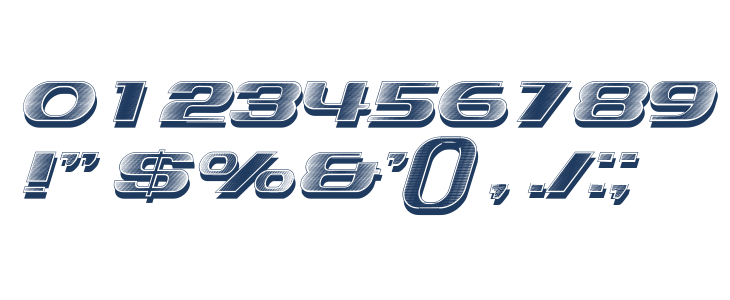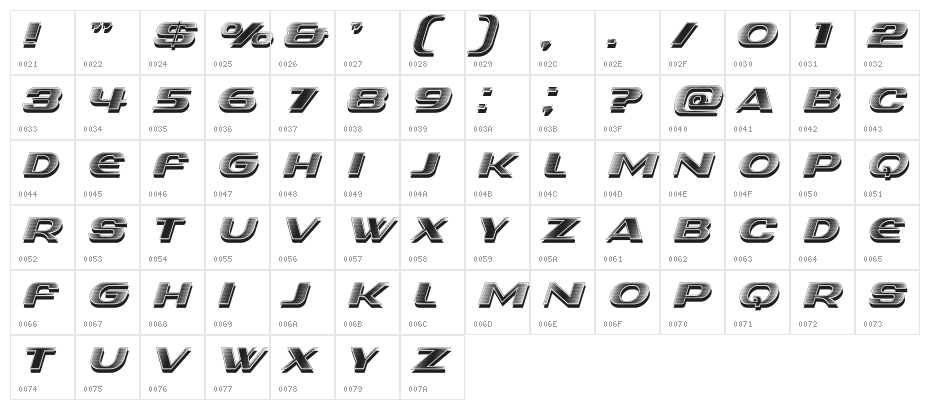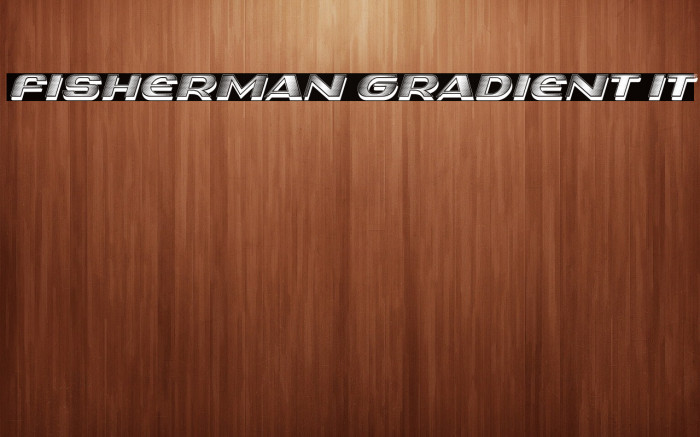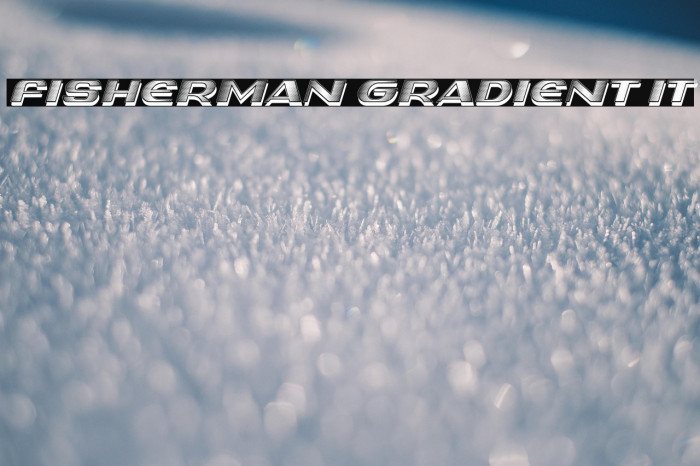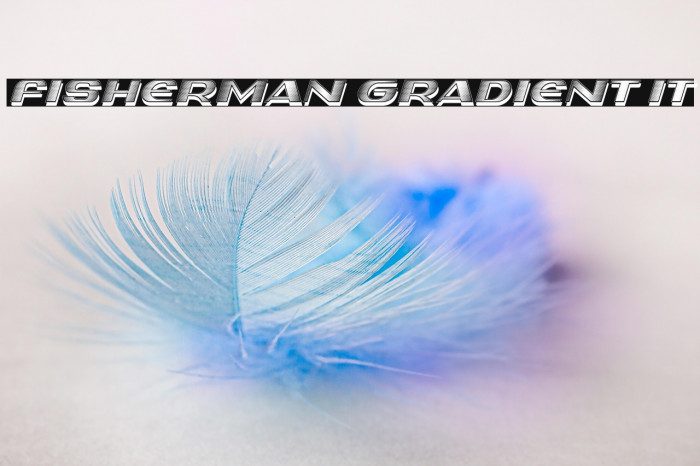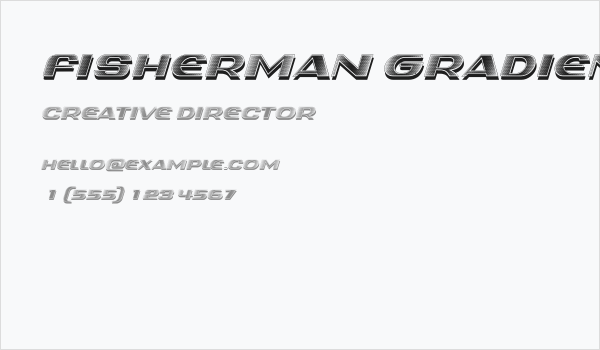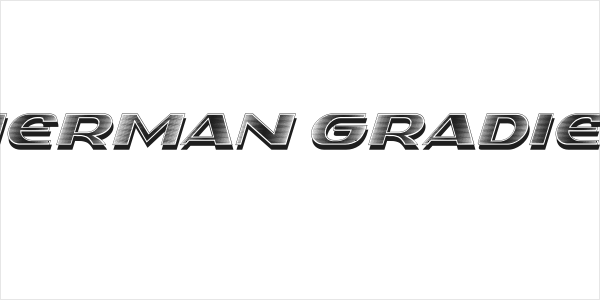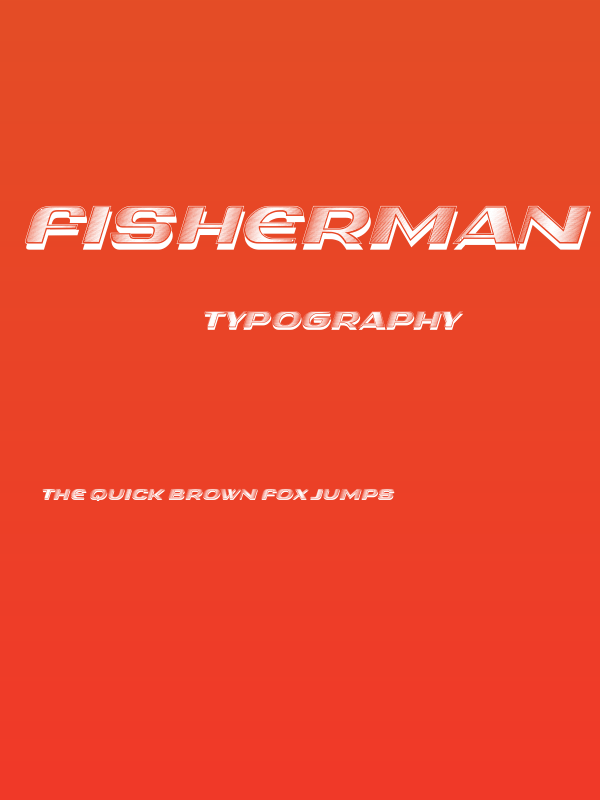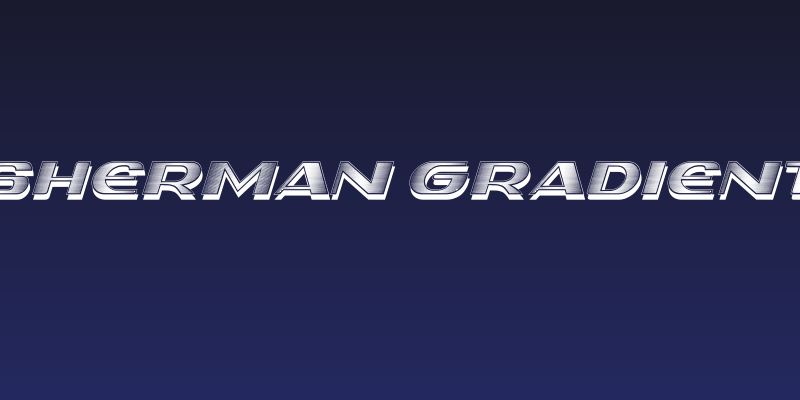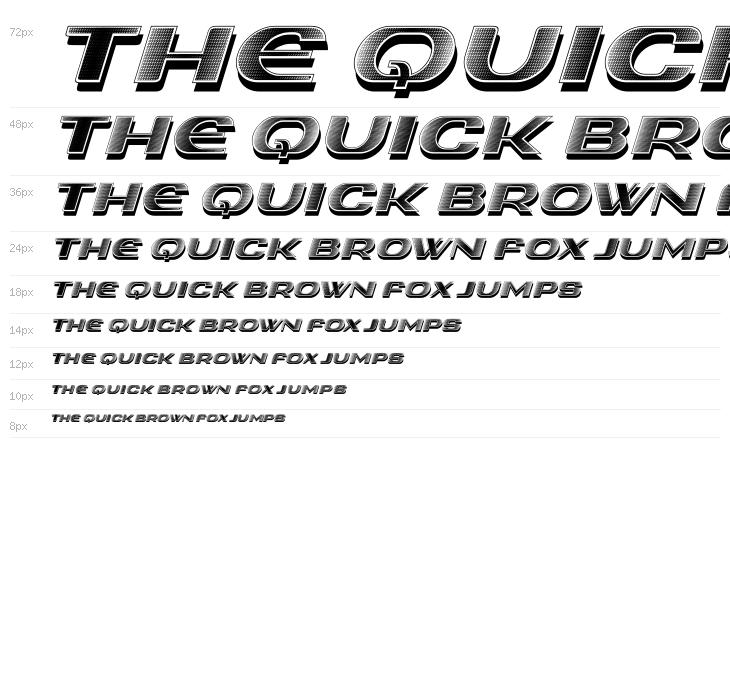
Fisherman Gradient IT Font
Fisherman Gradient IT Description
This font features a bold and dynamic design with a distinct gradient effect that gives it a three-dimensional appearance. The characters are uppercase and have a futuristic, sporty style, making them stand out with their sharp edges and sleek curves. The gradient adds depth and a sense of motion, enhancing its visual appeal. The numbers and special characters follow the same design principles, ensuring consistency across all glyphs. This font is ideal for projects that require a modern and energetic look.
| Proposed Projects | Ideal for sports branding, futuristic posters, video game titles, and dynamic advertising campaigns. |